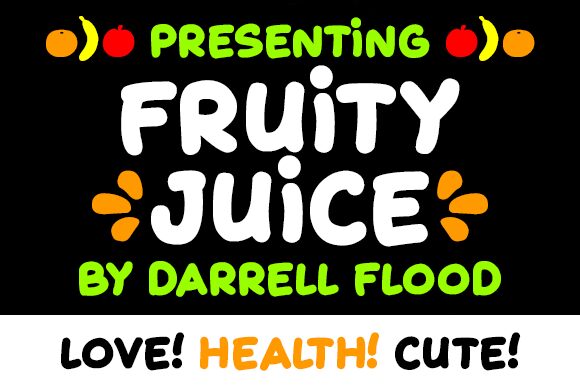
Fruity Juice Italic
Looking for a playful and whimsical font that screams fun? Look no further than Fruity Juice Italic, the latest addition to the Fruity Juice family designed by Darrell Flood. This extra-bold display typeface is perfect for projects where you want to make a bold statement with a touch of humor. Its cartoon style makes it suitable for everything from children's books and posters to product packaging and social media graphics. With its eye-catching curves and italicized lettering, Fruity Juice Italic is sure to add some zest to your next project!
For special characters (juice and fruit) please use []/